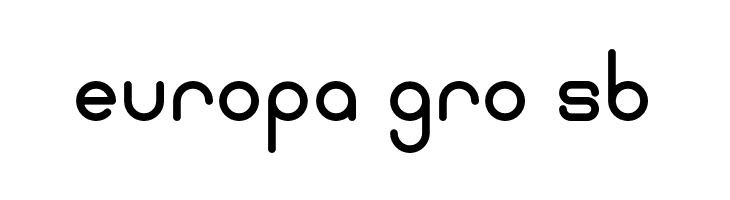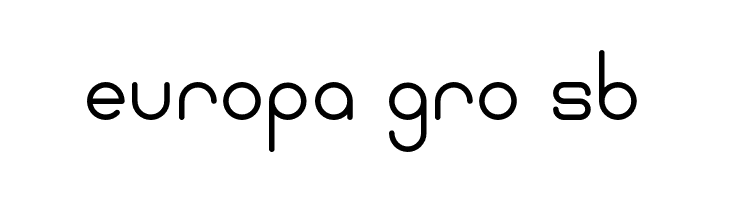
A bold, distressed font with a grungy, cracked texture and jagged edges.
A playful, handwritten font with quirky, energetic characters.
A sleek, minimalist font with thin, uniform lines and a modern, geometric design.
A sleek, modern font with thin lines and geometric structure.
A sleek, modern font with thin, uniform lines and a minimalist aesthetic.
A sleek, geometric font with consistent stroke width and modern design.
A futuristic, geometric font with bold, angular shapes and clean lines.
A bold, italic, and condensed font with a futuristic and dynamic design.
A futuristic, geometric font with bold, angular letterforms and a condensed style.
A futuristic and geometric font with bold, angular letterforms.
A bold, italicized font with a futuristic and dynamic design.
A futuristic, segmented font with a digital and modern aesthetic.
Futuristic italic font with gradient-striped design.
A futuristic italic font with bold, angular letterforms and a dynamic style.
A futuristic, geometric font with a shadow effect for a 3D look.
A bold, angular font with a futuristic shadow effect and dynamic slant.
A playful, rounded font with a friendly and approachable style.
A classic serif font with elegant, sharp serifs and medium contrast.
A bold, high-contrast serif font with angular serifs and a modern flair.
A bold serif font with strong strokes and sharp serifs, offering a classic yet modern look.
A bold, high-contrast serif font with sharp serifs and a modern classic style.
Decorative, pictographic font with ancient, symbolic motifs.
A pictographic, decorative font mimicking ancient stone carvings.
A playful, hand-drawn font with rounded, smooth curves and a friendly appearance.
A playful, handwritten-style italic font with smooth, rounded strokes.
A flowing, cursive script font with a handwritten, elegant style.
A bold, glitch-inspired font with a digital, futuristic style.
A bold, glitch-style font with an italic slant, perfect for tech-themed designs.
A decorative, pixelated font with a digital, futuristic aesthetic.
A bold, italicized font with a jagged, digital glitch effect.
A dramatic, angular font with elongated strokes and sharp serifs.
A bold, 3D font with sharp, angular lines and a futuristic style.
A bold, 3D italic font with a futuristic and dynamic style.
A bold, condensed font with sharp angles and a futuristic style.
A bold, angular, and condensed italic font with a futuristic style.